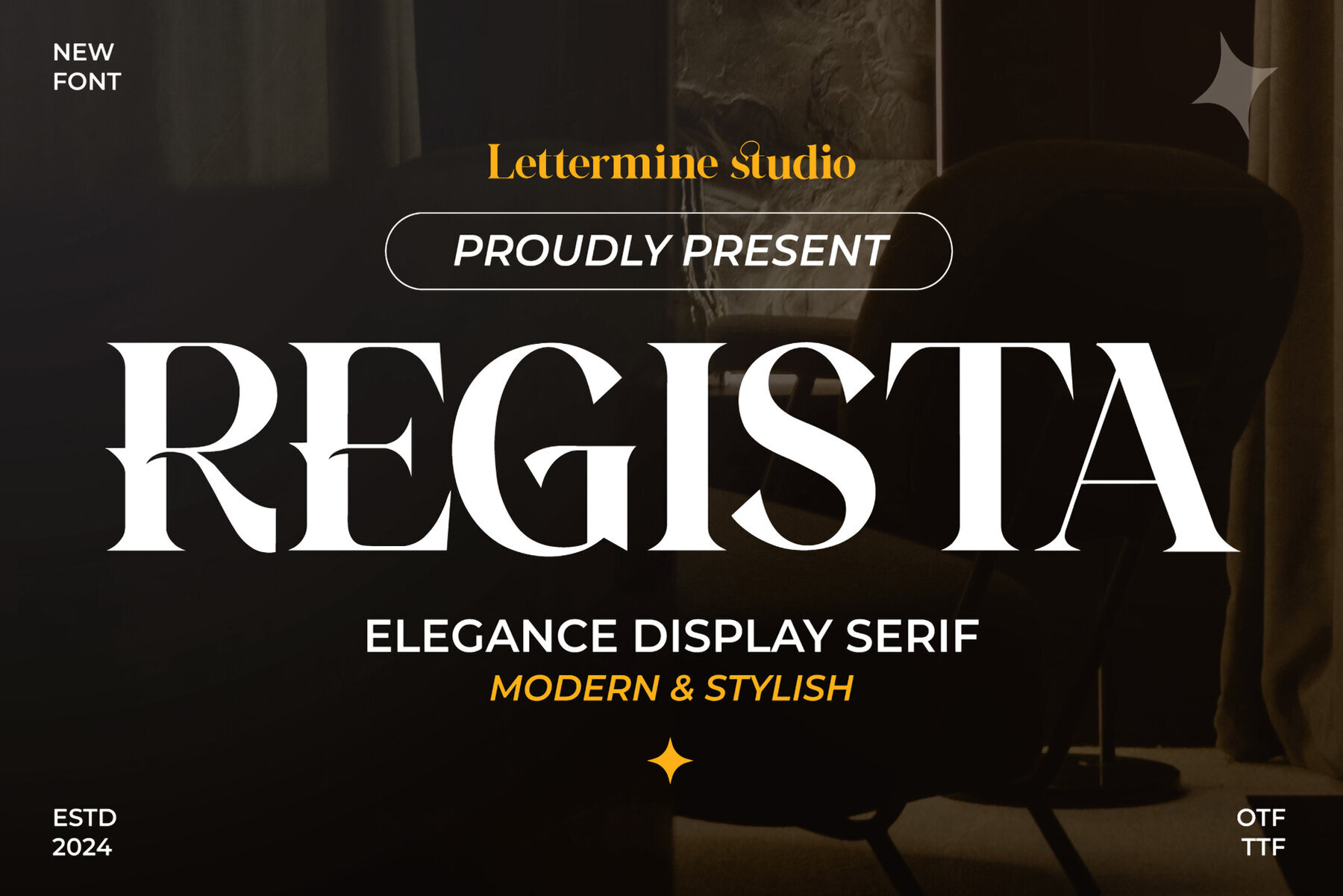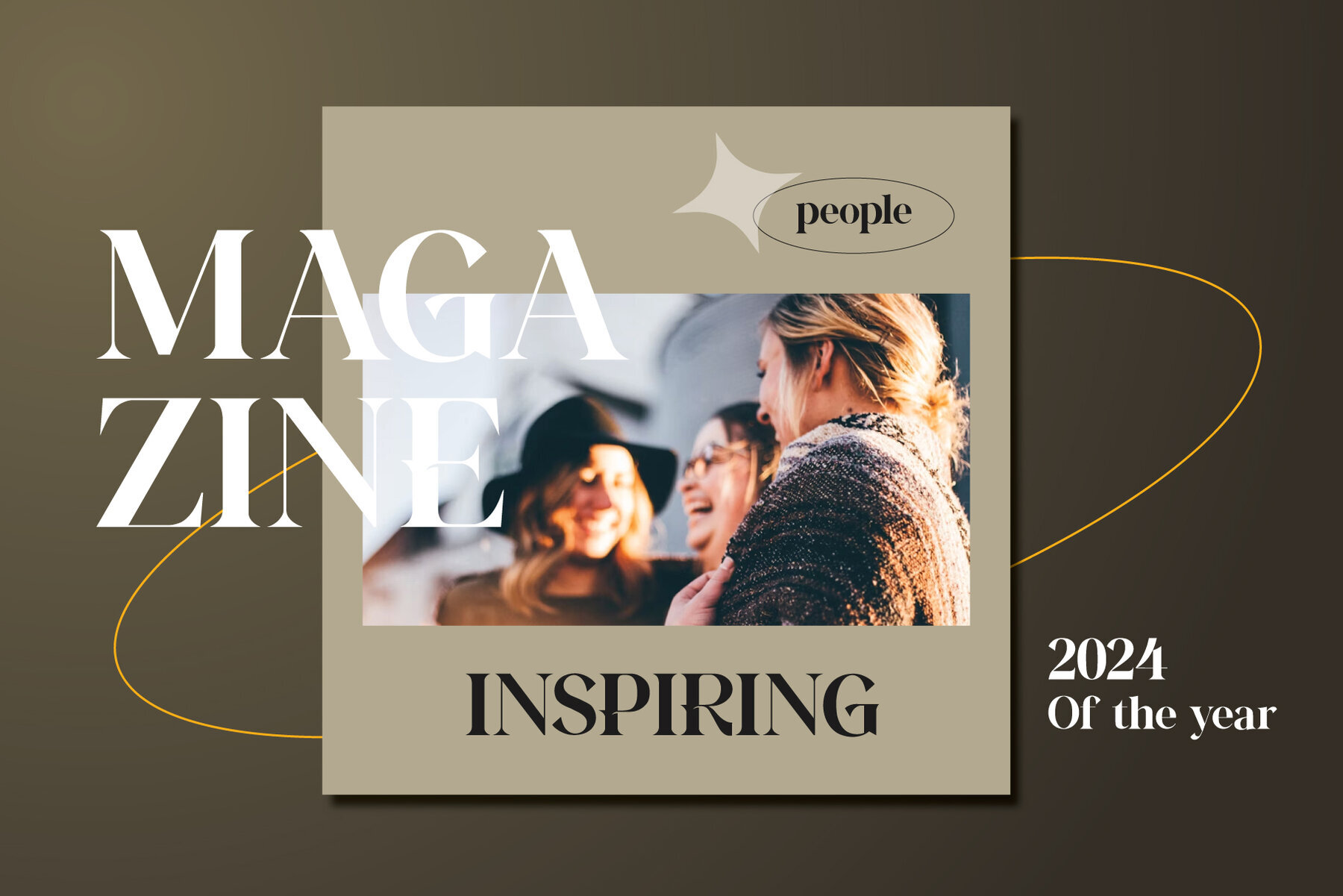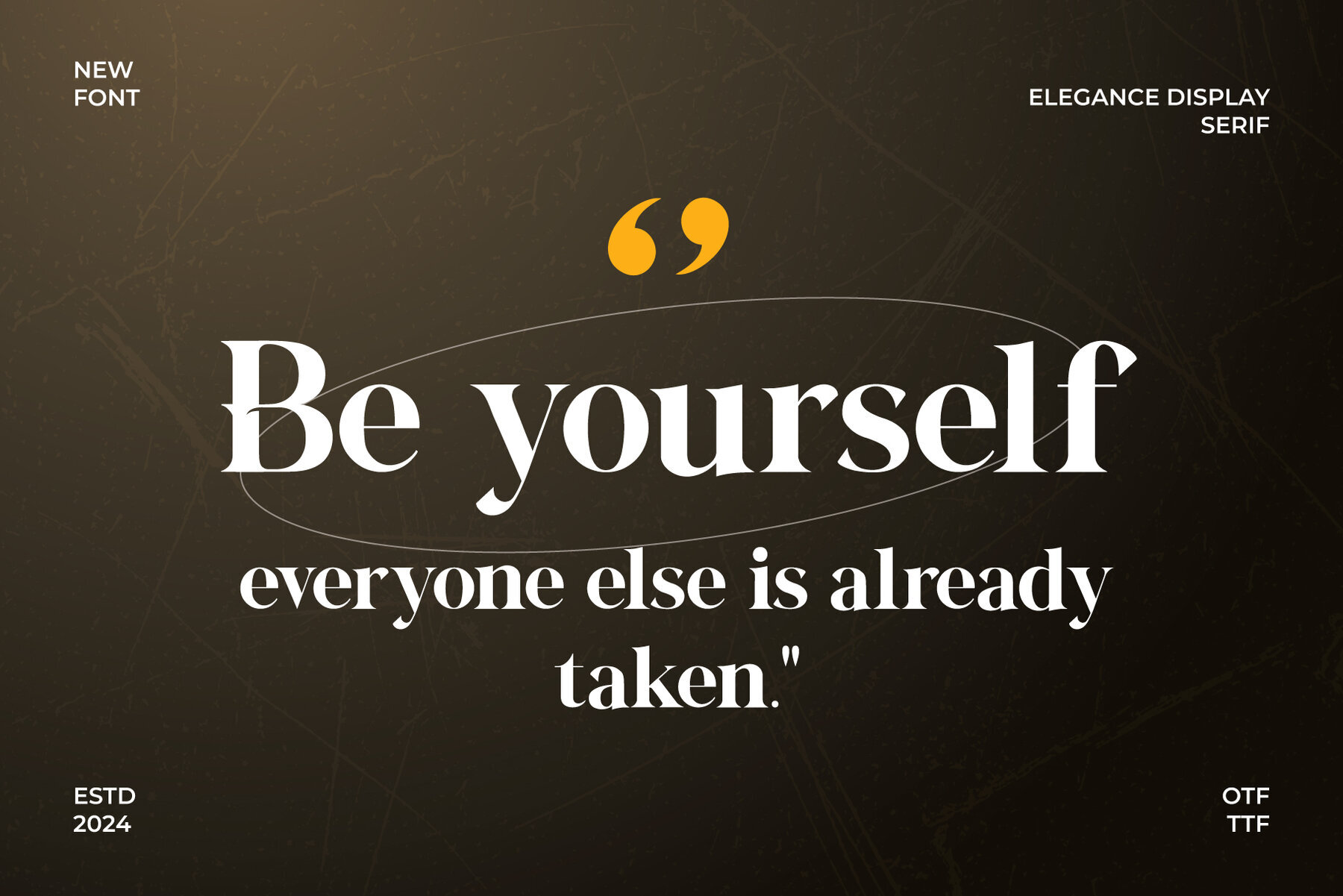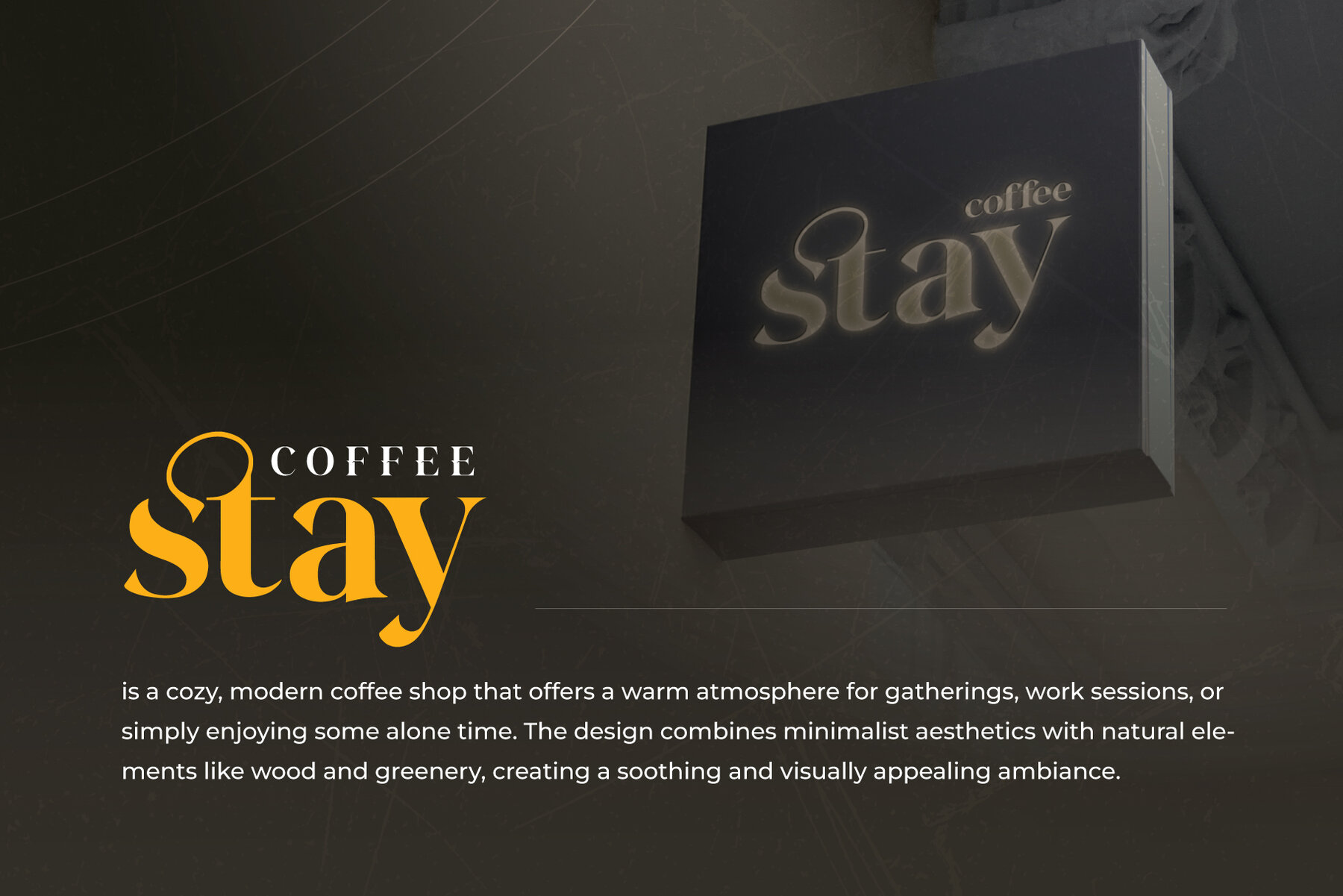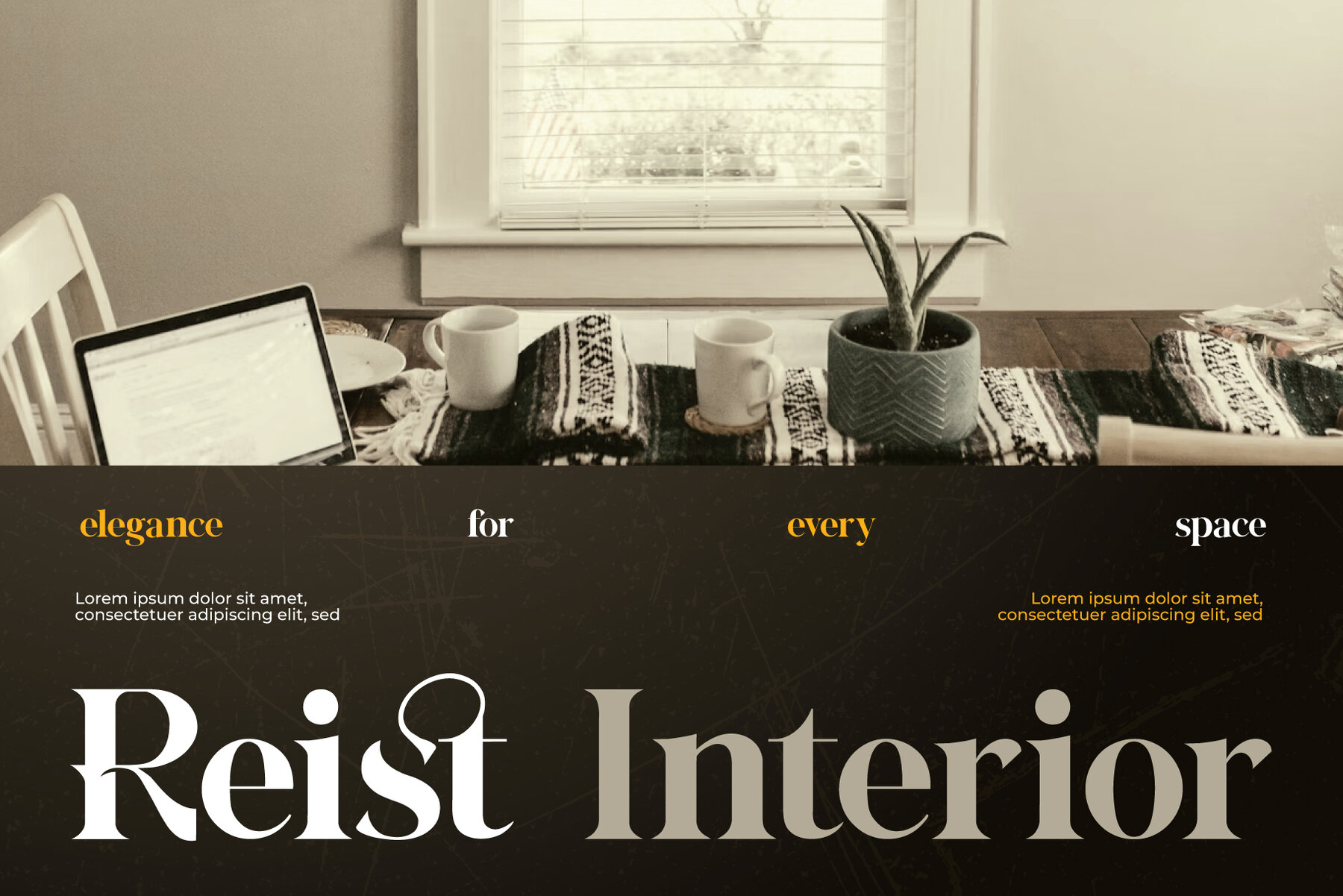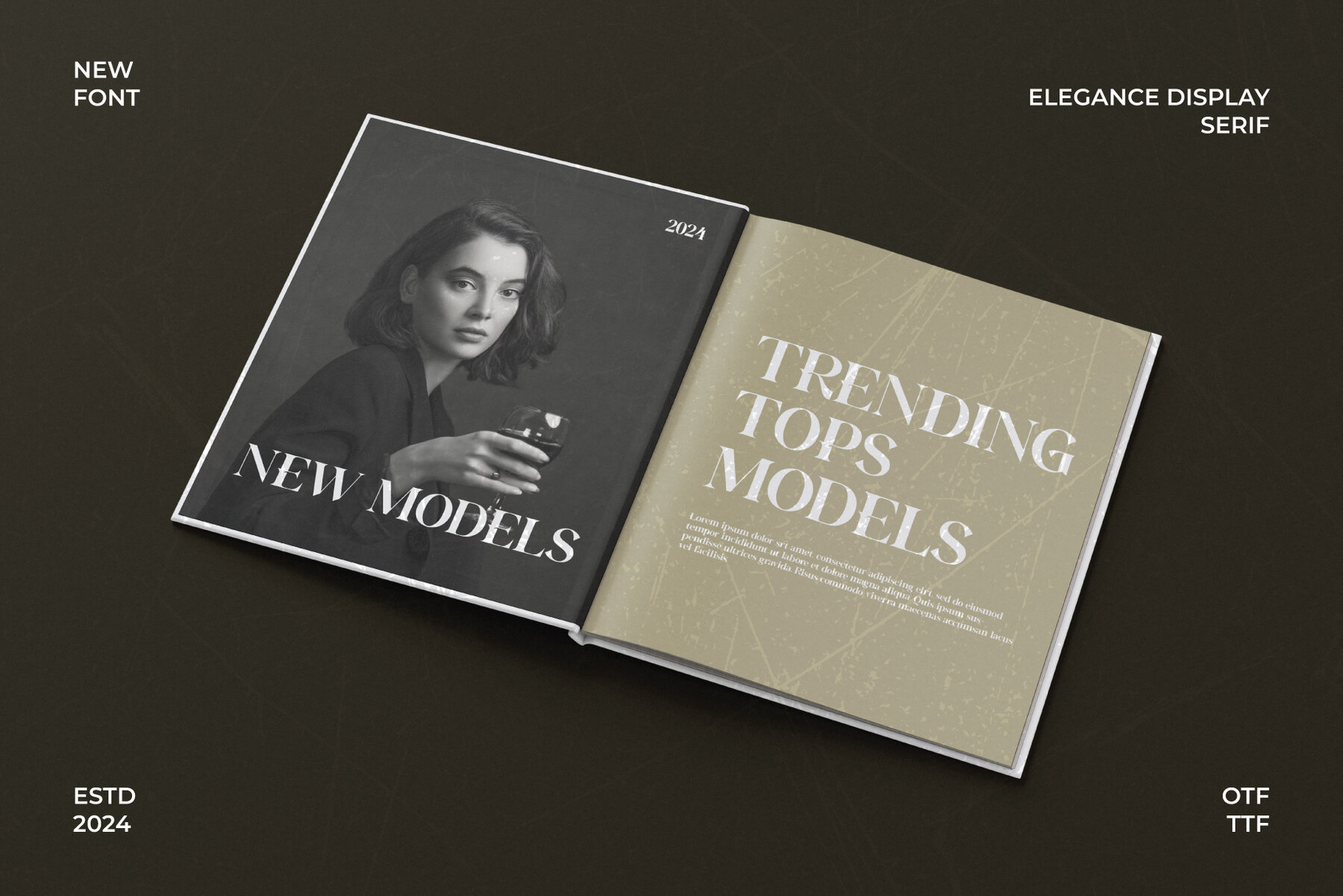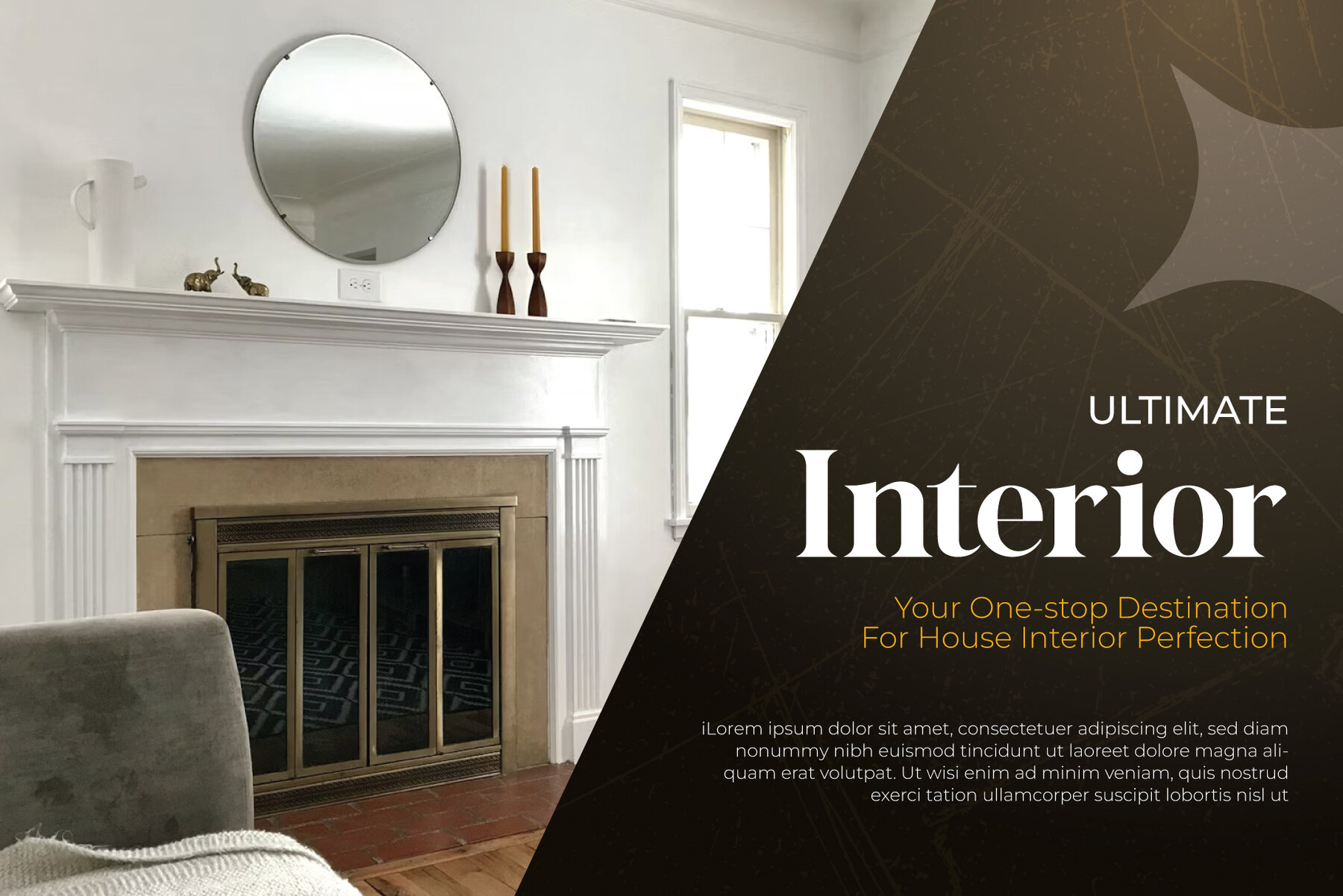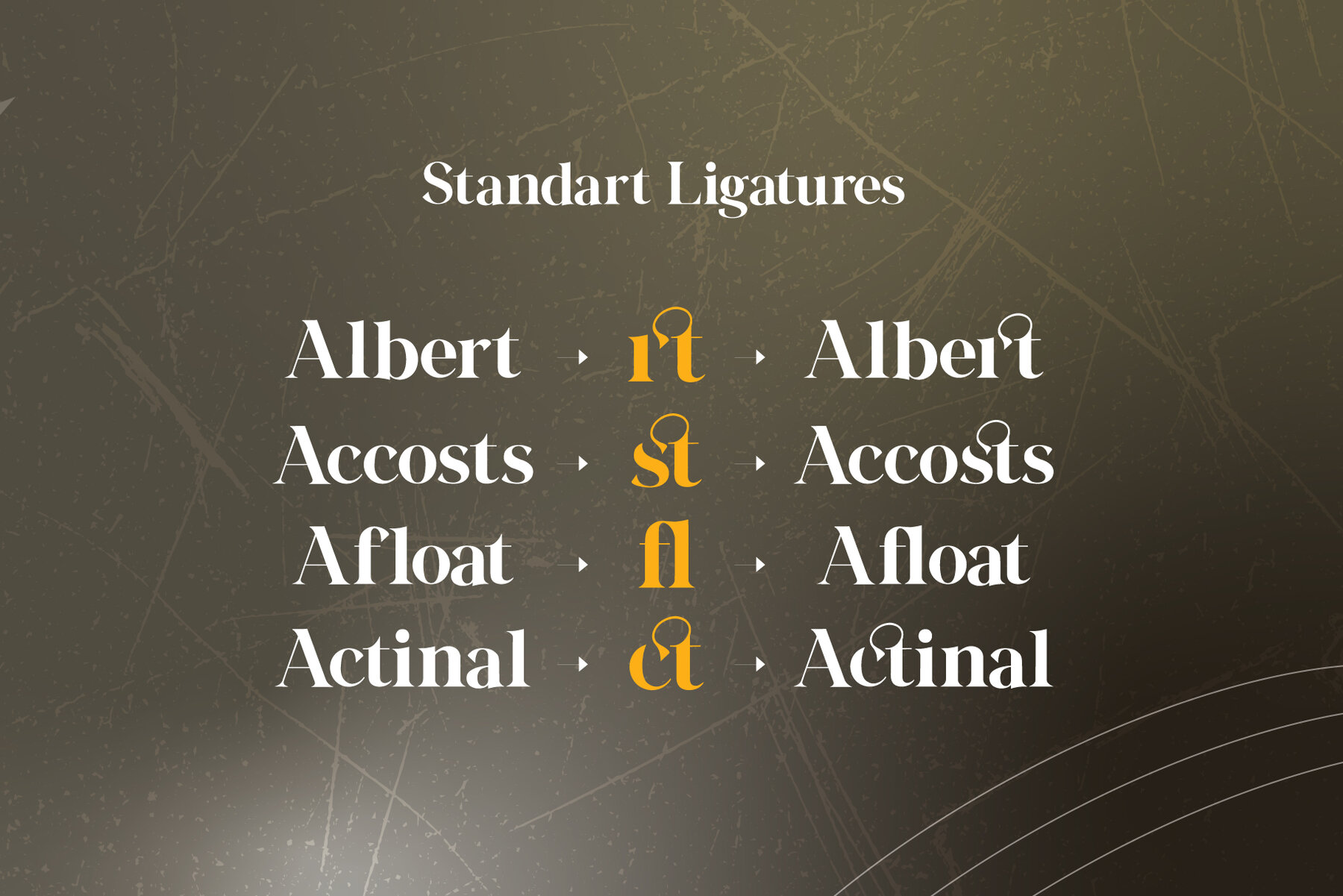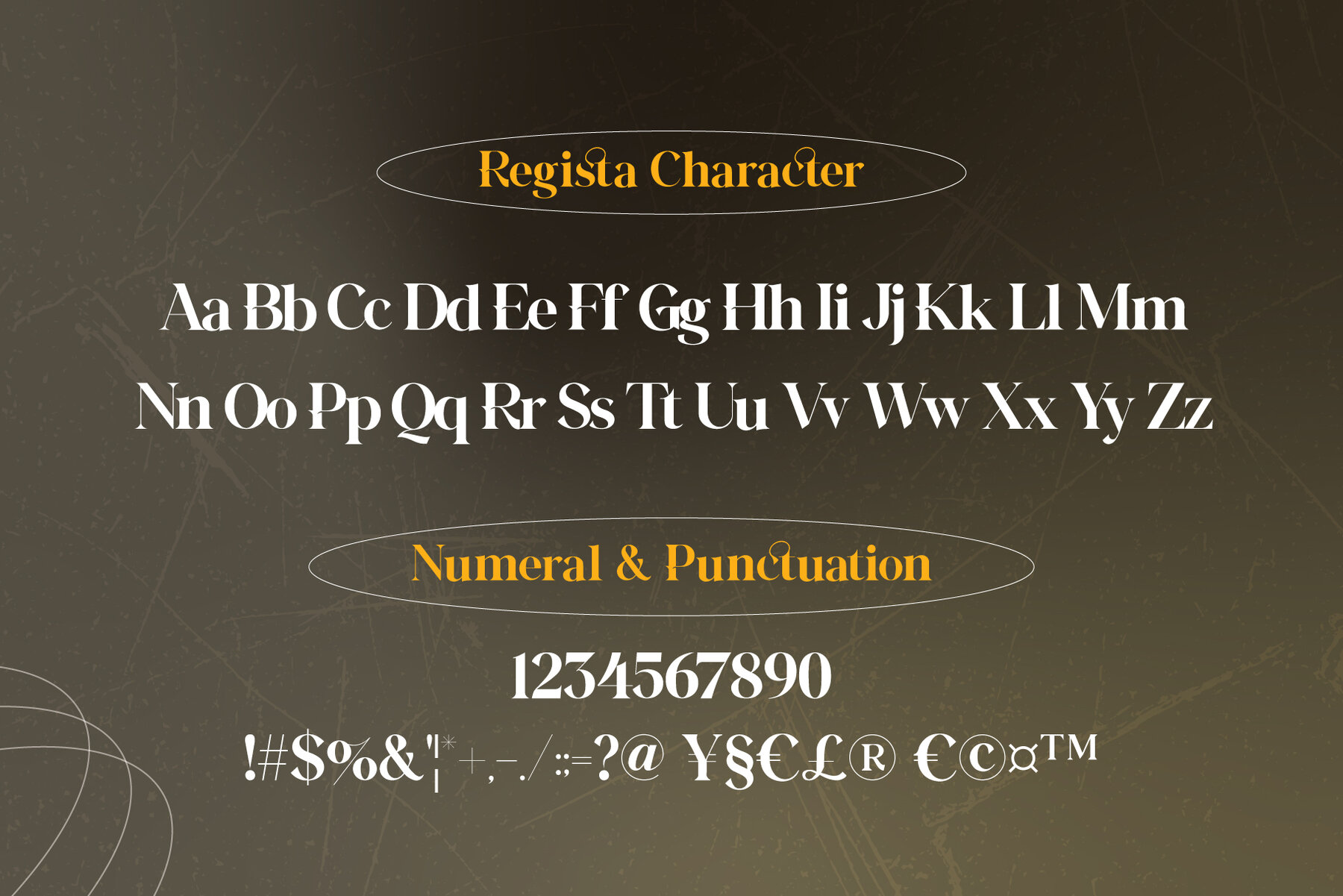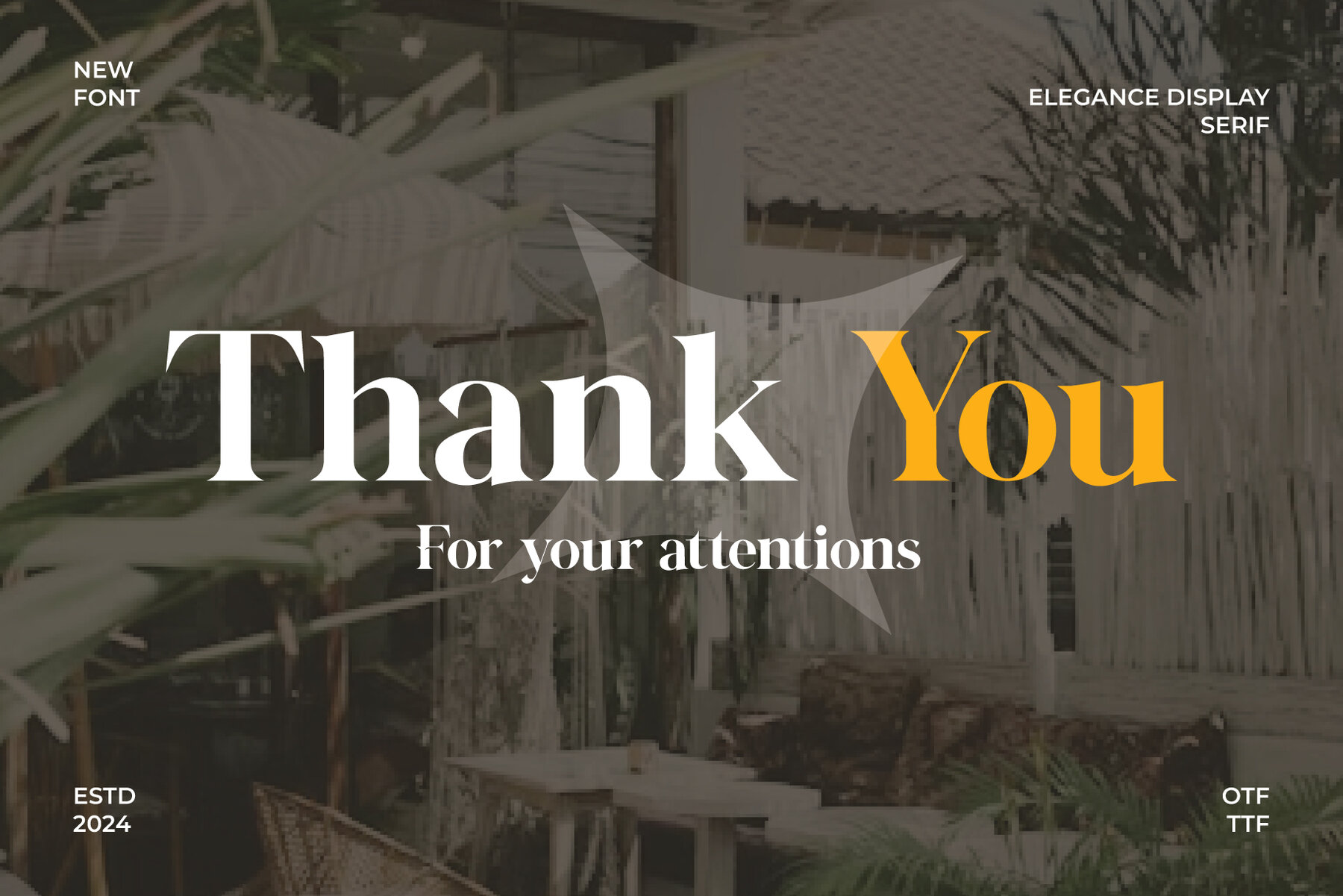
Regista Font
Regista is a display serif font that marries elegance with a modern touch. Each character in Regista features meticulously crafted sharp serifs and clean lines, contributing to its striking and timeless appeal. This makes it an ideal choice for branding and editorial designs, as well as any project that calls for a sophisticated aesthetic.
Key Features:
- Stylish Serifs: Graceful yet bold serif details that convey confidence and sophistication.
- Complete Character Set: Includes uppercase and lowercase letters, numbers, punctuation, and symbols for complete usability.
- Multilingual Support: Offers extensive language coverage to effectively communicate across diverse audiences.
Regista’s bold sophistication ensures a memorable visual impact, perfect for logos, headlines, and editorial layouts. Let your creativity flourish with this distinctive font that seamlessly blends classic style with contemporary design.